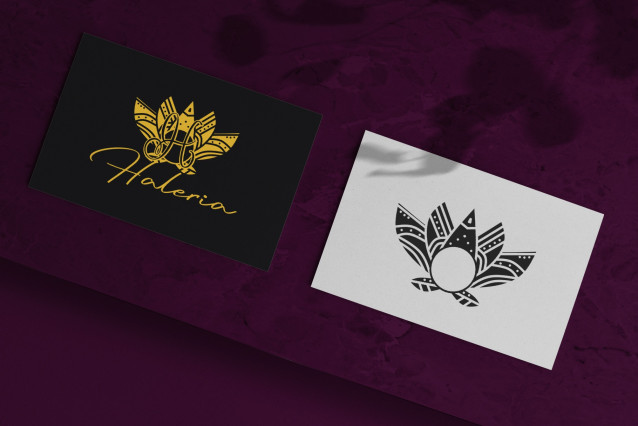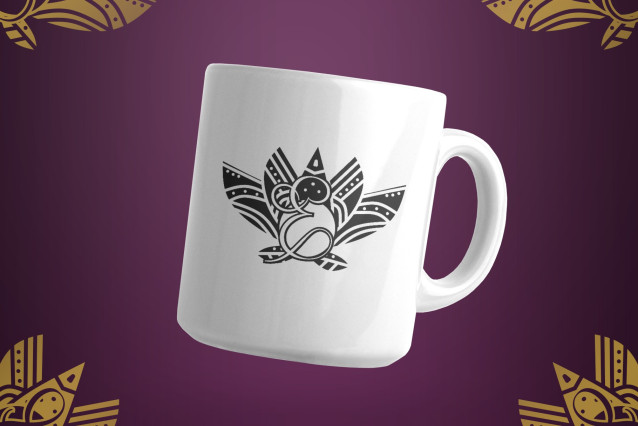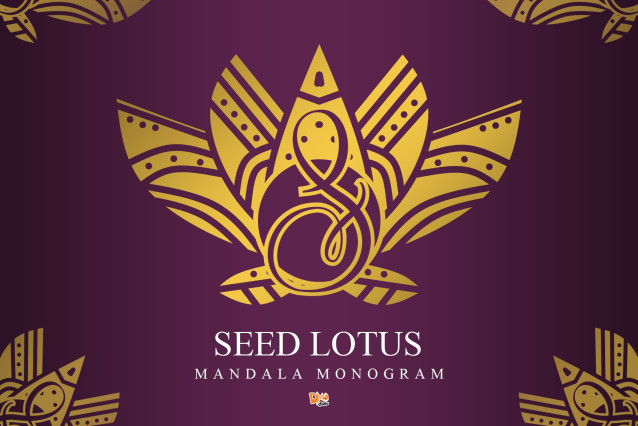
Seed Lotus Mandala Monogram Font
Seed Lotus Mandala Monogram Font is a luminous font featuring delicate mandala designs inspired by the lotus flower. Its elegant curves and intricate patterns make it a perfect choice for wedding invitations, wellness branding, personal stationery, and decorative monogram projects. This font captures a harmonious blend of radiance and serenity in every letterform.